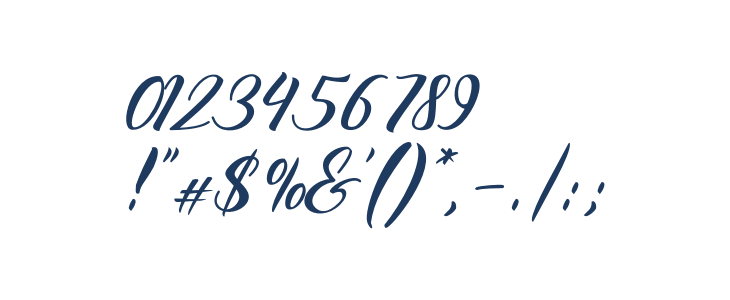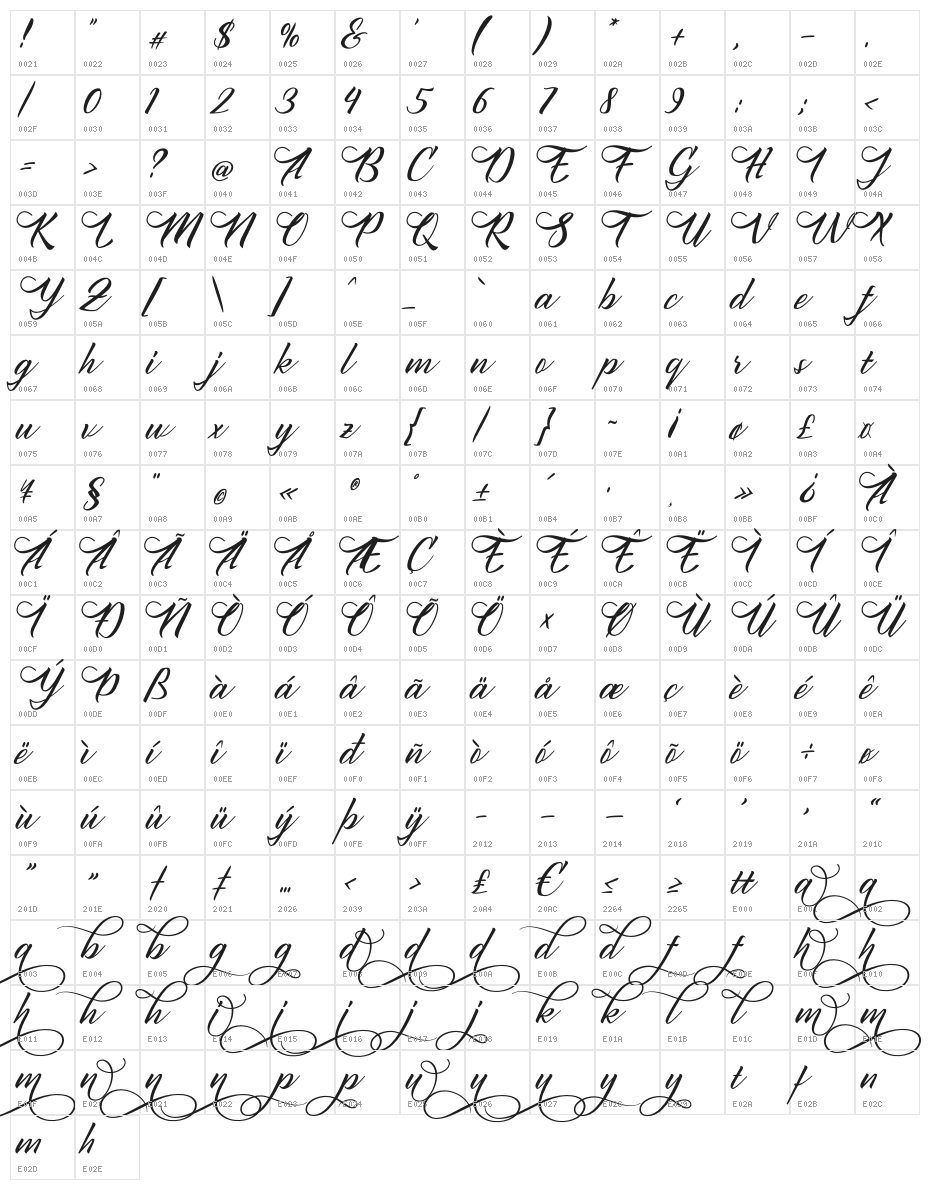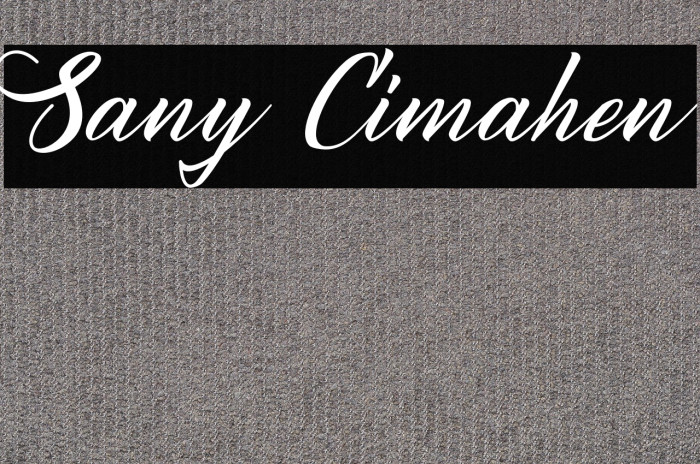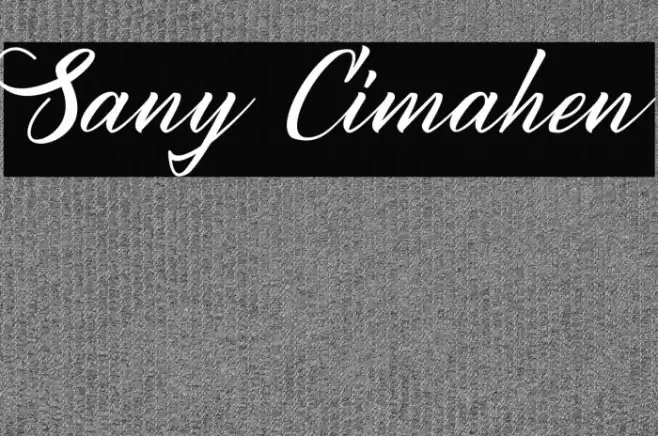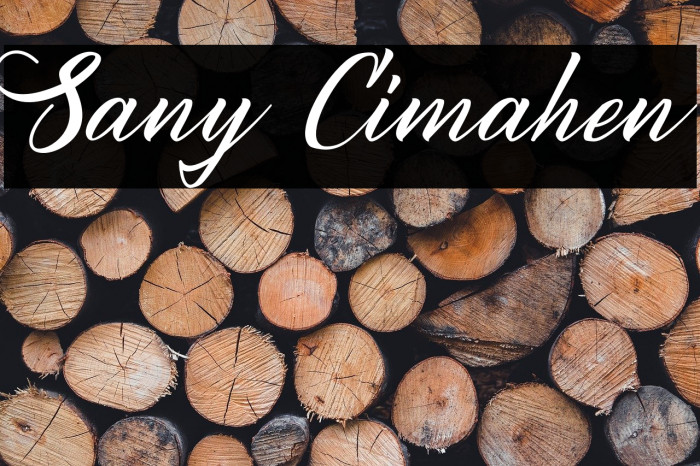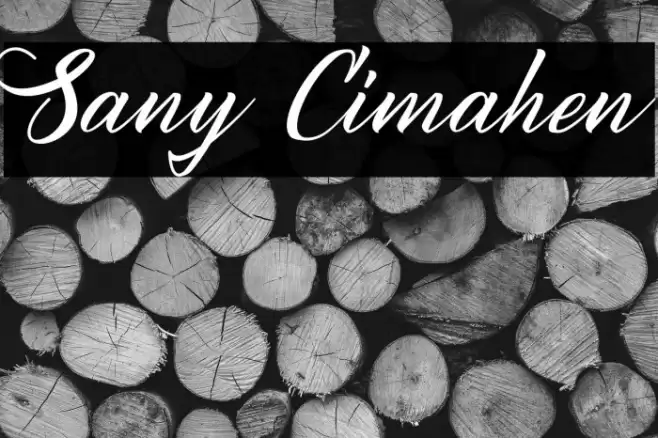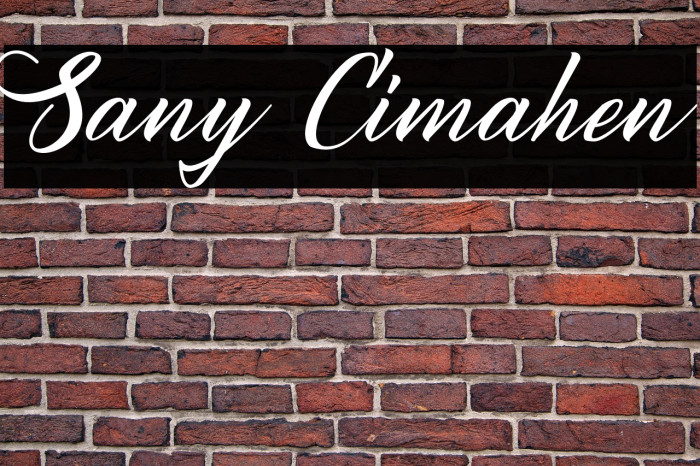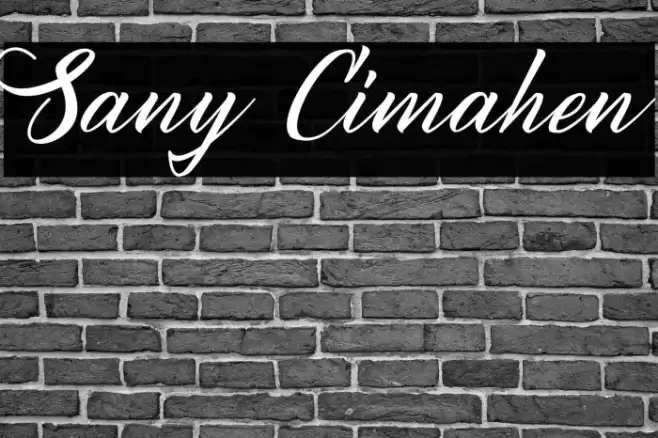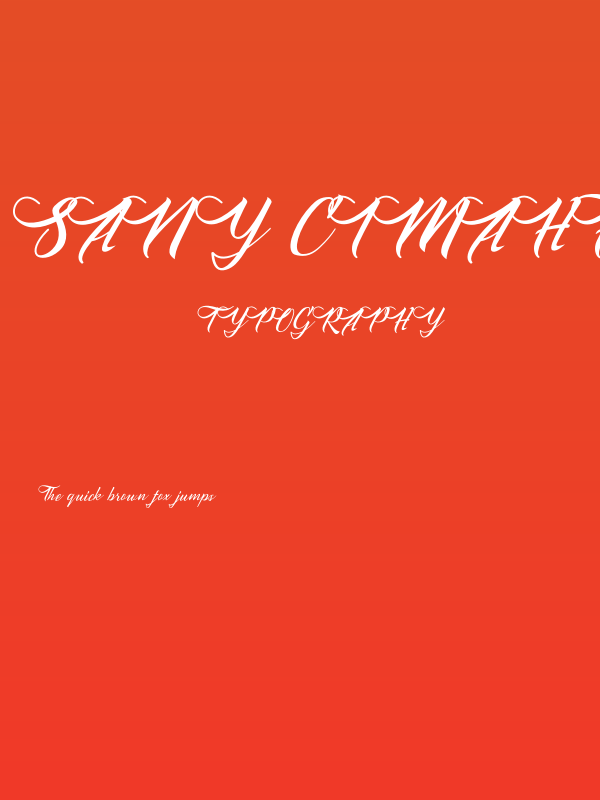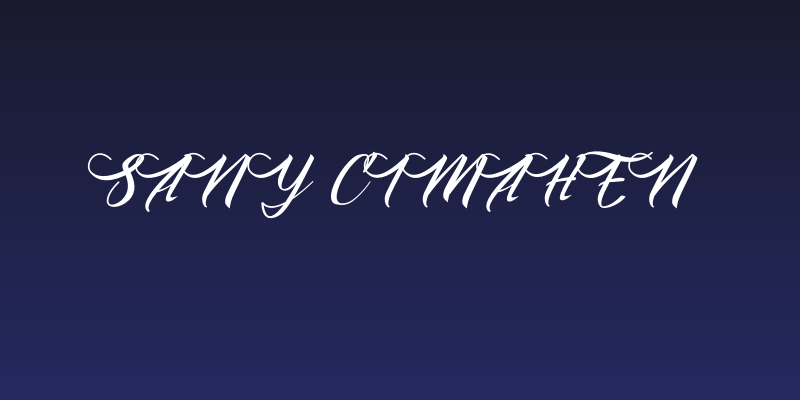
Sany Cimahen Font
Sany Cimahen Description
This font exhibits a flowing, cursive style with elegant, sweeping strokes that give it a dynamic and sophisticated appearance. The uppercase letters are characterized by their ornate loops and flourishes, while the lowercase letters maintain a consistent fluidity, enhancing readability despite their decorative nature. The numerals and special characters are designed to complement the script style, maintaining the same graceful curves and artistic flair. This font is ideal for projects that require a touch of elegance and personal expression, such as invitations, branding, and artistic designs. Its unique style captures attention while conveying a sense of luxury and creativity.
| Use Case | Logos, Invitations, Artistic Designs |
| Proposed Projects | Ideal for wedding invitations, luxury branding, artistic designs, and personal stationery. |